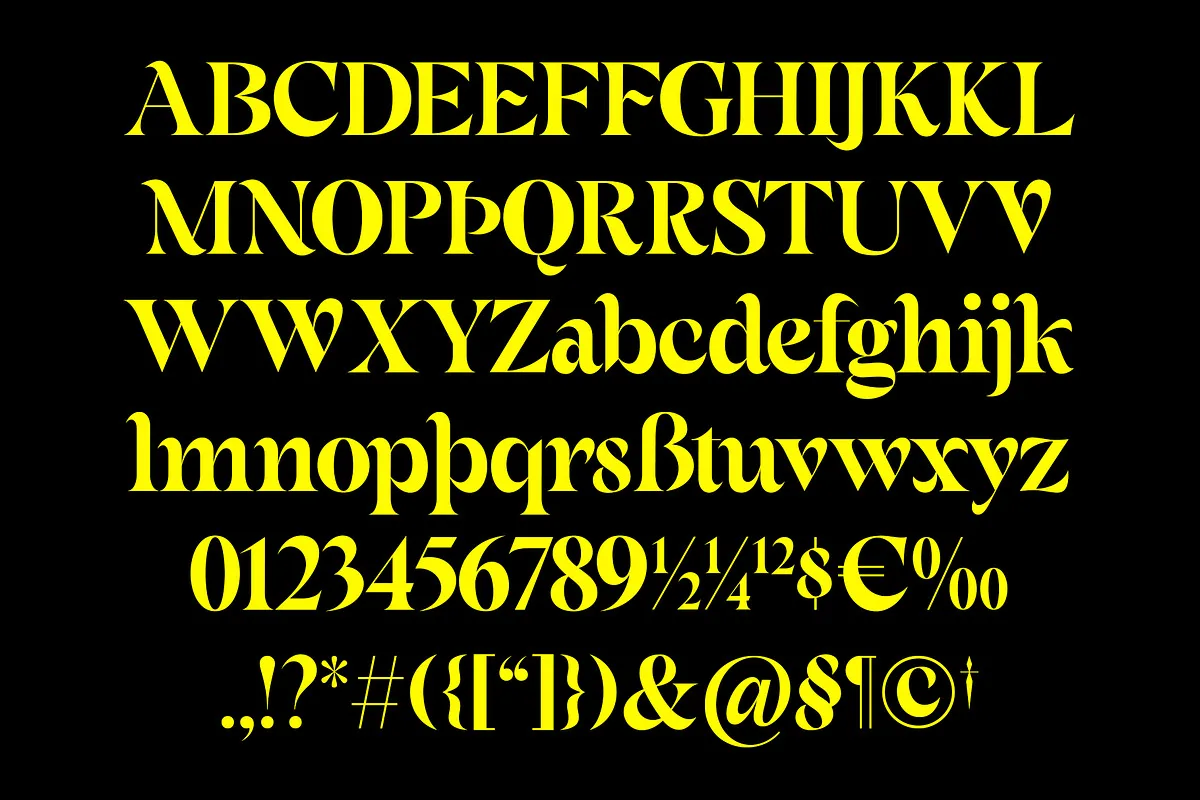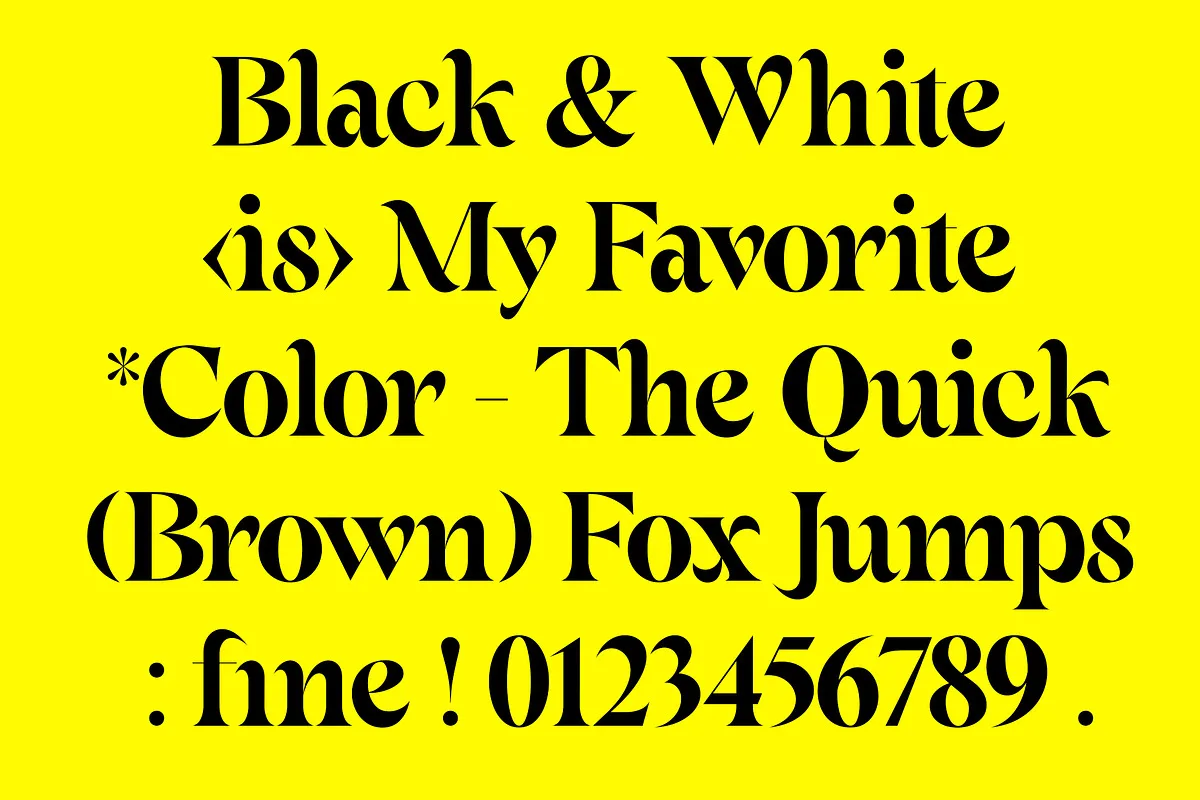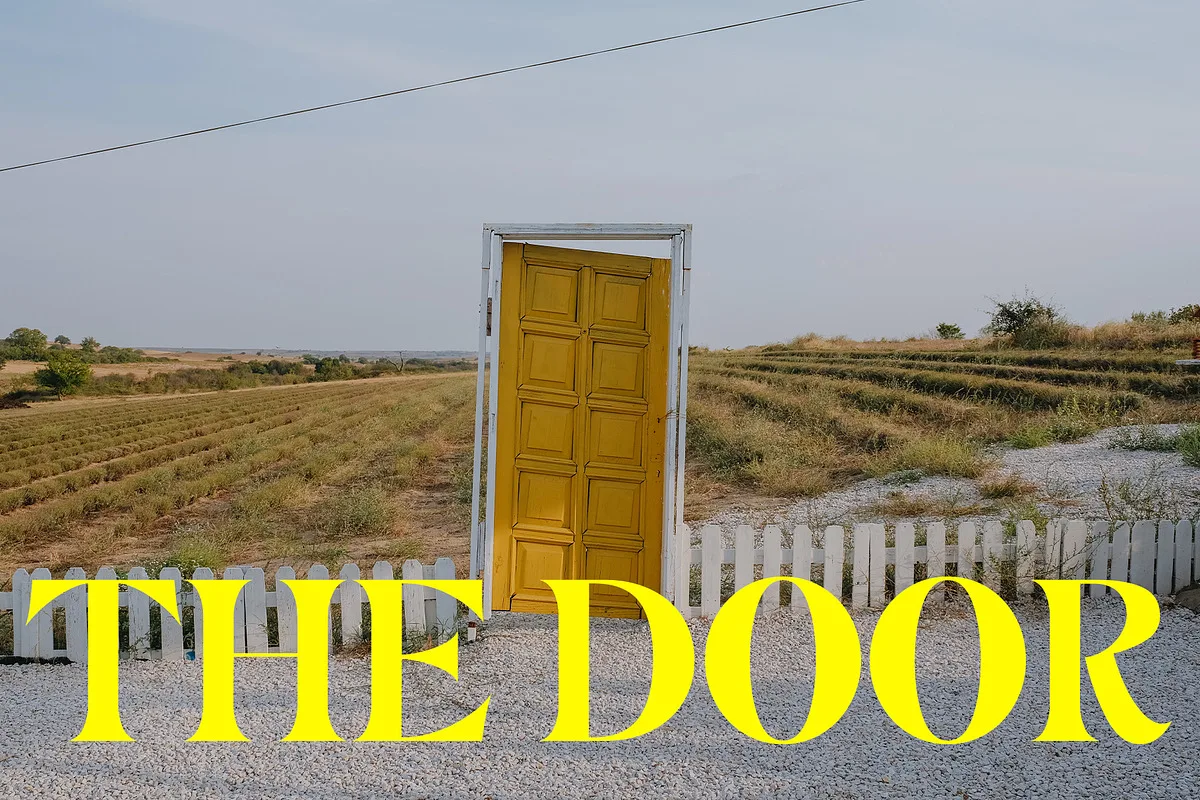
Fortrose is a classic-style serif font with a bold look and sharp thin lines. Fortrose also features ligatures, alternative characters, and a multilingual environment which further complements this font use. This font is perfect for creative projects such as Logotypes, printed quotes, invitations, cards, product packaging, headers, Letterhead, Apparel, Web design, Magazine, Book, etc.